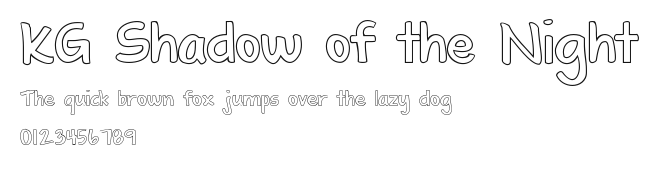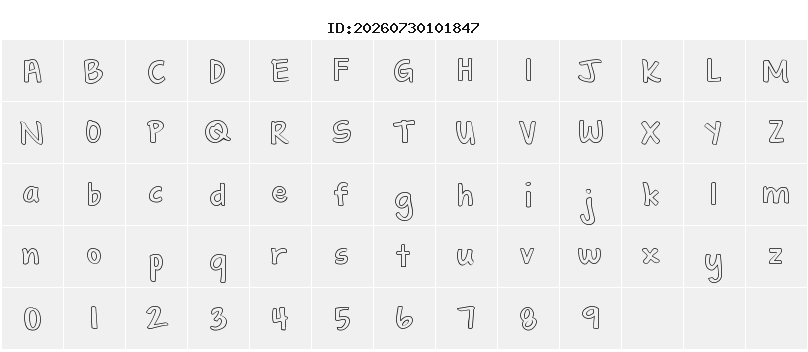
KG Shadow of the Night Preview
• Font Name: KG Shadow of the Night
• Font ID: KimberlyGeswein: KG Shadow of the Night: 2011
• Full Font Name: KG Shadow of the Night
• Version: Version 1.000 2011 initial release
• PostScript Name: KGShadowoftheNight
• Character Count: 332
• Designer: Kimberly Geswein
• Manufacturer: Kimberly Geswein
• Description: Copyright (c) 2011 by KG Shadow of the Day. All rights reserved.
About KG Shadow of the Night.ttf
KG Shadow of the Night.ttf is a modern, elegant sans-serif font designed for ultimate readability and visual harmony. Perfect for branding, headlines, web design, and print materials.